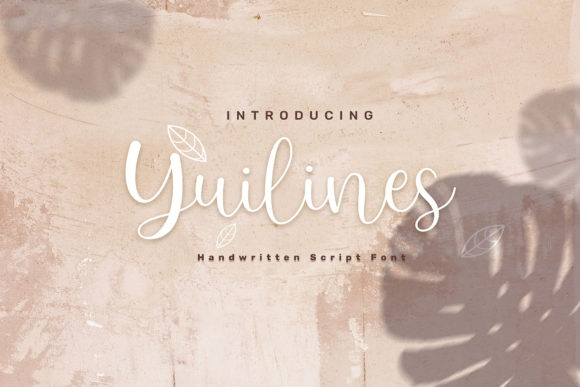
Step into the realm of captivating creations with Yuilines Font – a script typeface that exudes elegance and charm. Its delicate strokes and graceful swashes dance across the page, evoking a sense of whimsy and romance.
Born from the creative vision of Sizimon, Yuilines Font is a true masterpiece, hand-crafted to perfection. Each letter is adorned with intricate details, showcasing the artistry and passion poured into its making.
With its innate versatility, Yuilines Font effortlessly adapts to a myriad of creative endeavors. Enchant your wedding invitations with a touch of sophistication, let your heartfelt letters and notes exude warmth and charm, or elevate your branding with a distinctive flair.
Whether you're a seasoned designer or just starting your creative journey, Yuilines Font is your perfect companion. Its user-friendly nature makes it accessible to all, inviting you to explore the boundless possibilities of your imagination.
Indulge in the beauty of Yuilines Font and let your creativity soar. Transform your designs into captivating works of art, leaving a lasting impression wherever they may be seen.